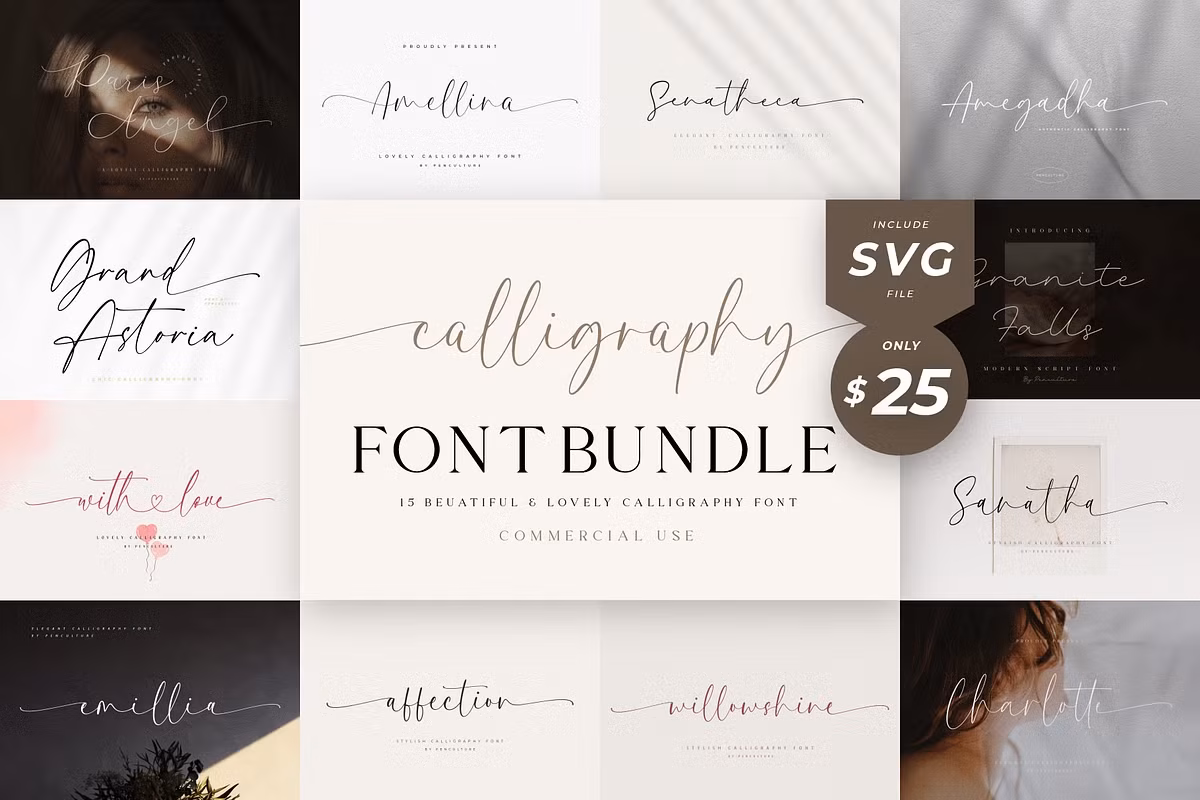
Calligraphy Font Bundle Voll II Free Download
Calligraphy Font Bundle Voll II Free Download is a comprehensive collection of elegant, hand-crafted calligraphy fonts designed for a wide variety of creative projects. This bundle includes several beautifully detailed fonts, ranging from flowing scripts to sophisticated, formal calligraphy styles, making it perfect for wedding invitations, logos, branding, social media graphics, and any project that requires a personal, artistic touch.
The Calligraphy Font Bundle Voll II offers versatility, allowing you to mix and match the different fonts to create elegant, cohesive designs. Whether you are designing a romantic invitation, a luxury brand logo, or a creative project, this bundle has the perfect font for every occasion.